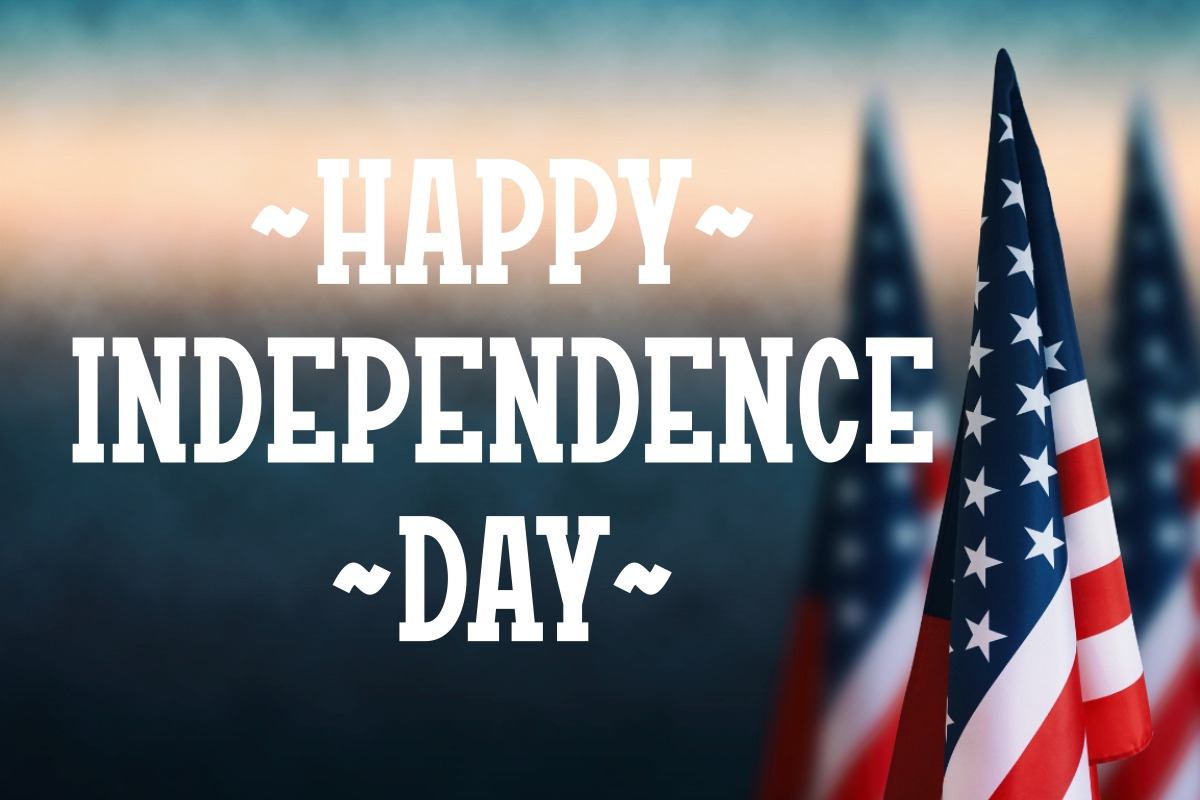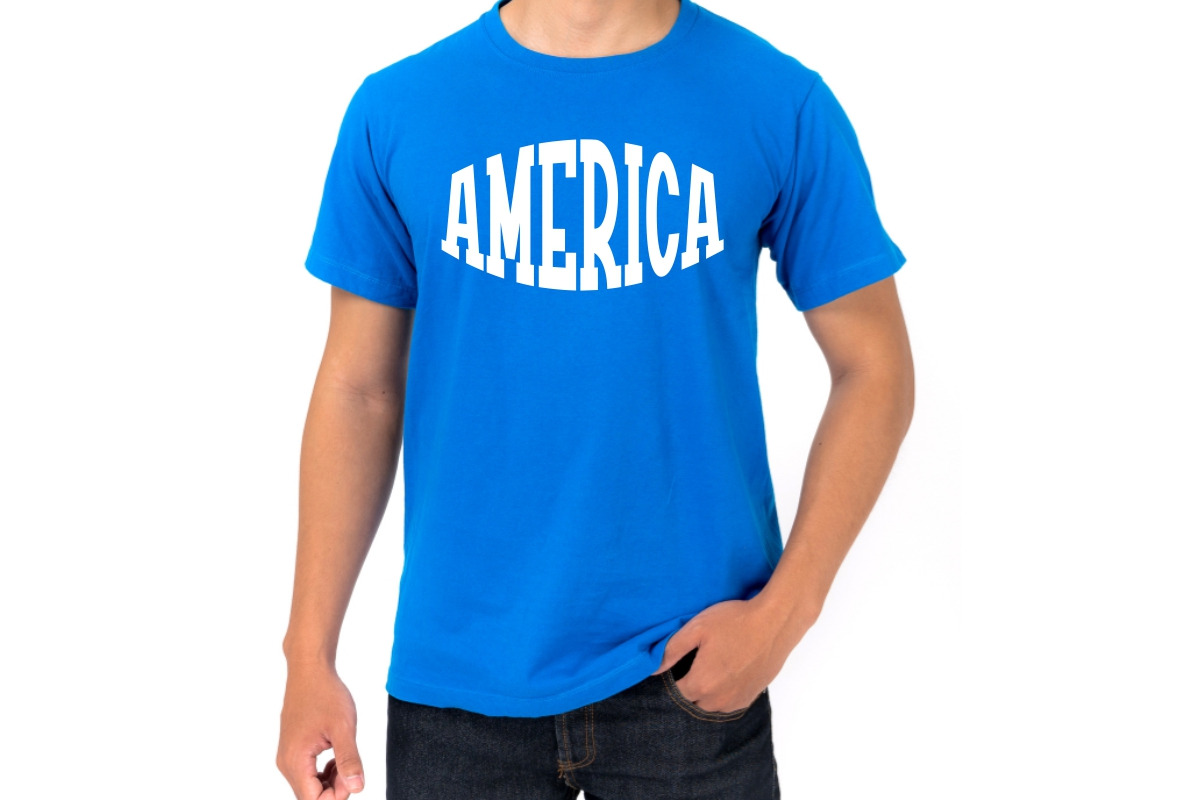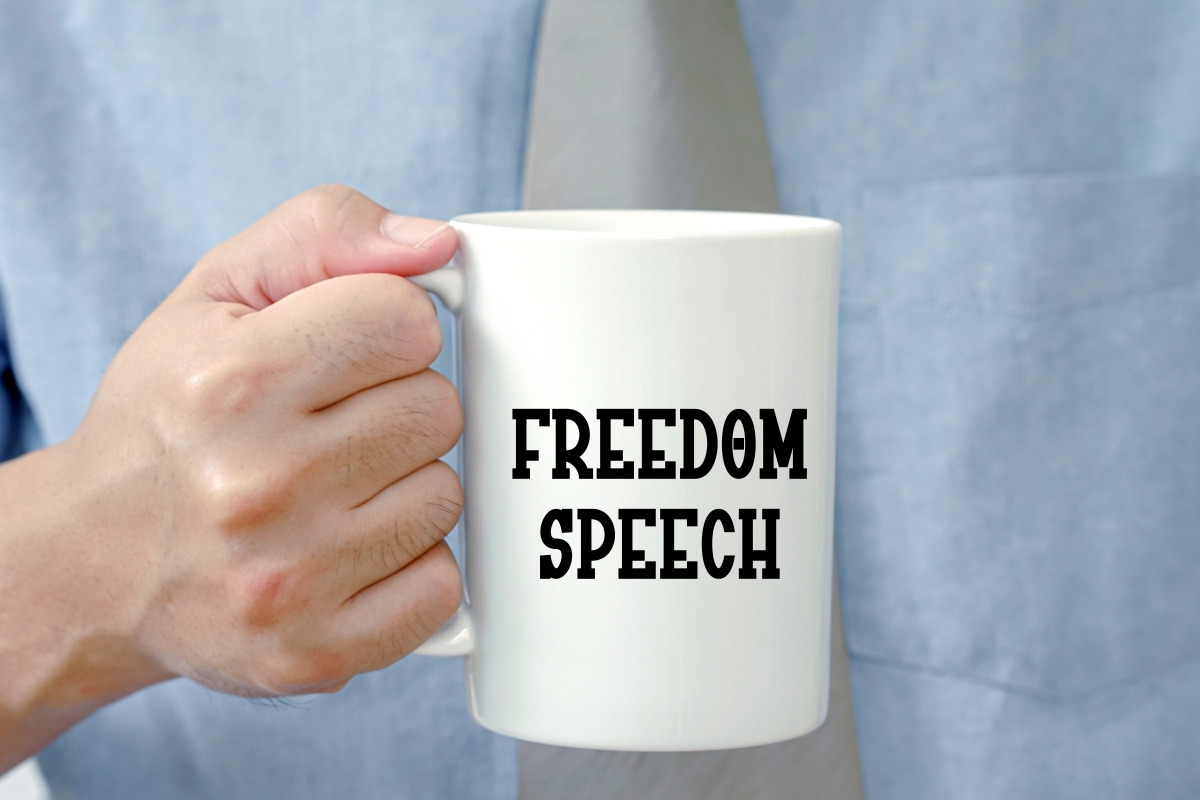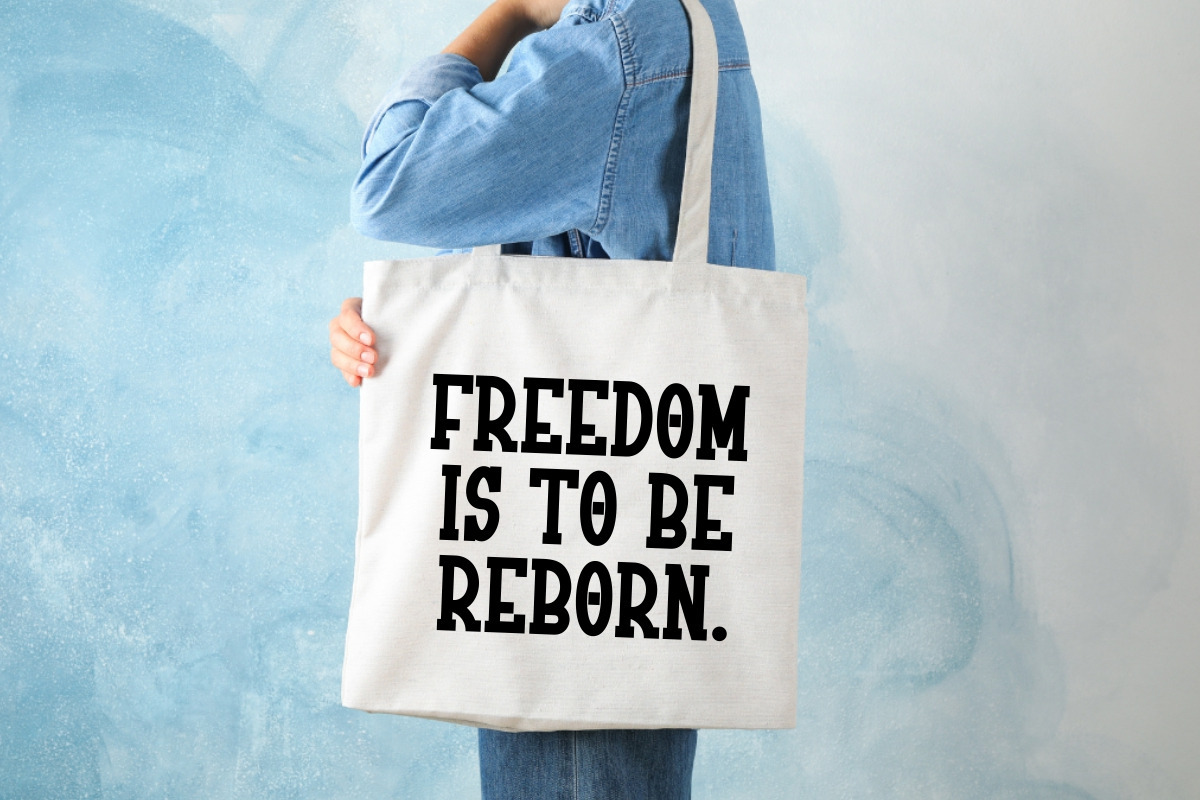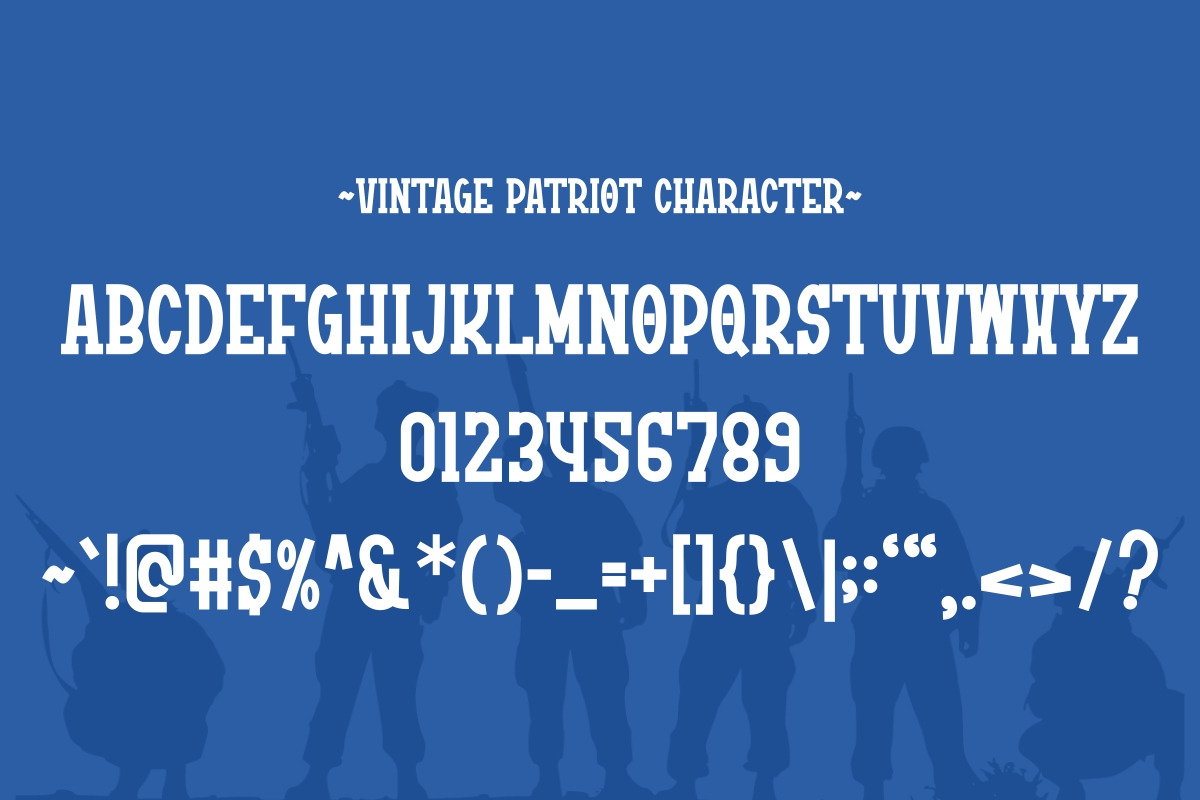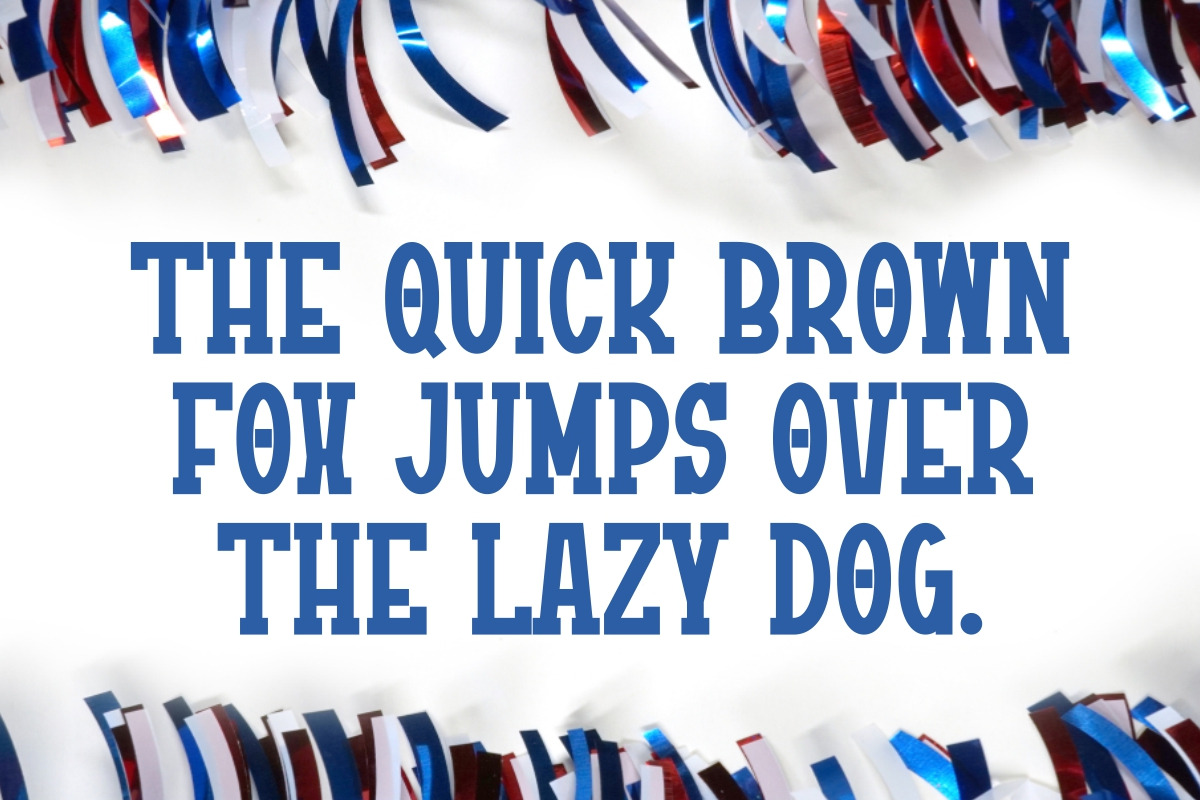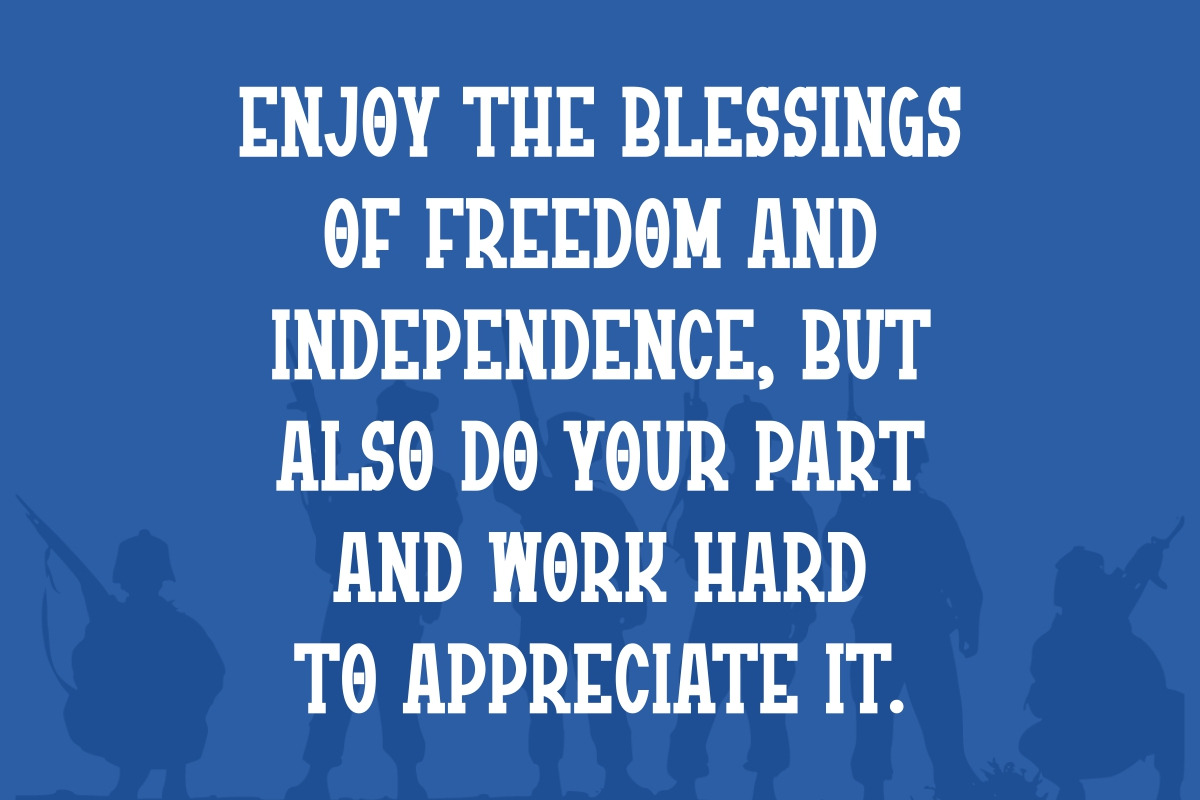
Vintage Patriot - Condensed Slab
Vintage Patriot is a bold vintage and clean slab serif font inspired by the spirit of freedom and Independence day with a classic blue theme. Perfect for creating striking quotes, posters, backgrounds, sports apparel, t-shirts, mugs, and tote bags, this font brings a sense of patriotic pride and vintage charm to your designs. Vintage Patriot combines robust elegance with a timeless appeal, making it ideal for any project celebrating national pride and freedom.